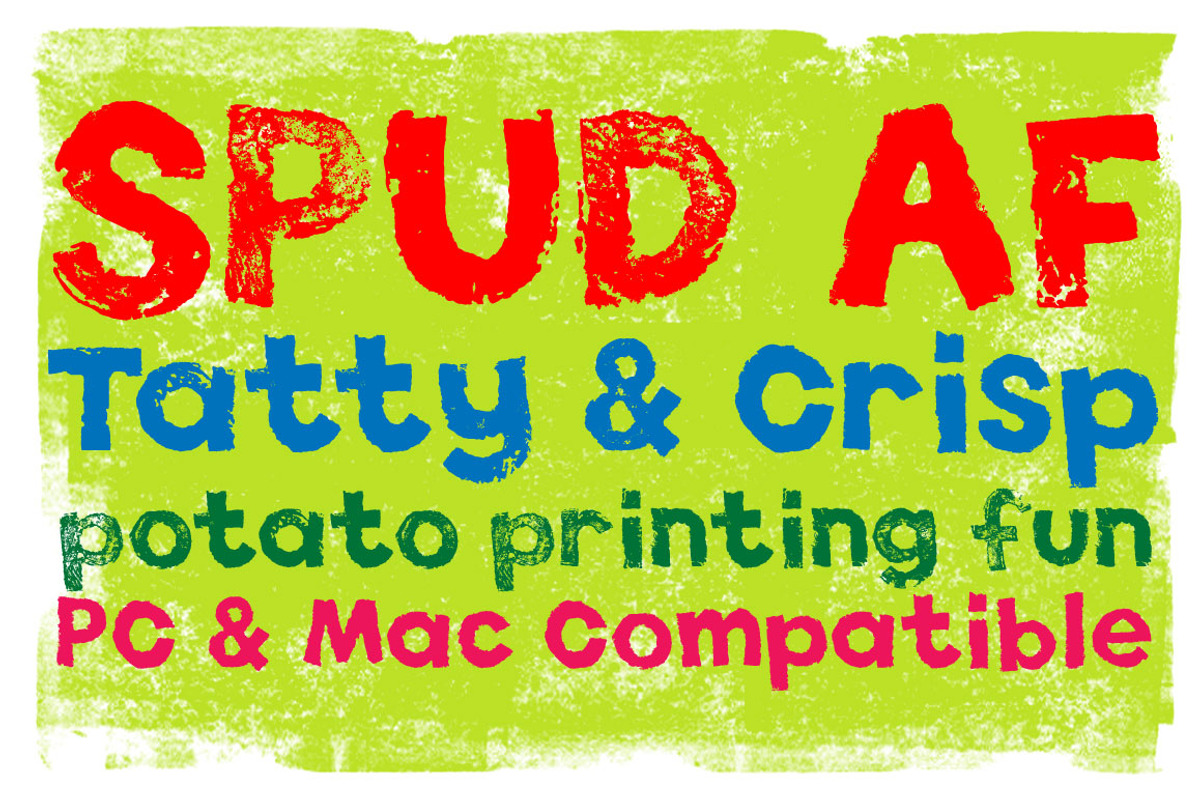
Spud AF Font
Spud AF Font by AndrewFos is a font selected for branding, posters, packaging, typography.
Why Spud AF Font is worth a look
Spud AF Font by AndrewFos fits naturally into Branding, posters, packaging, typography.